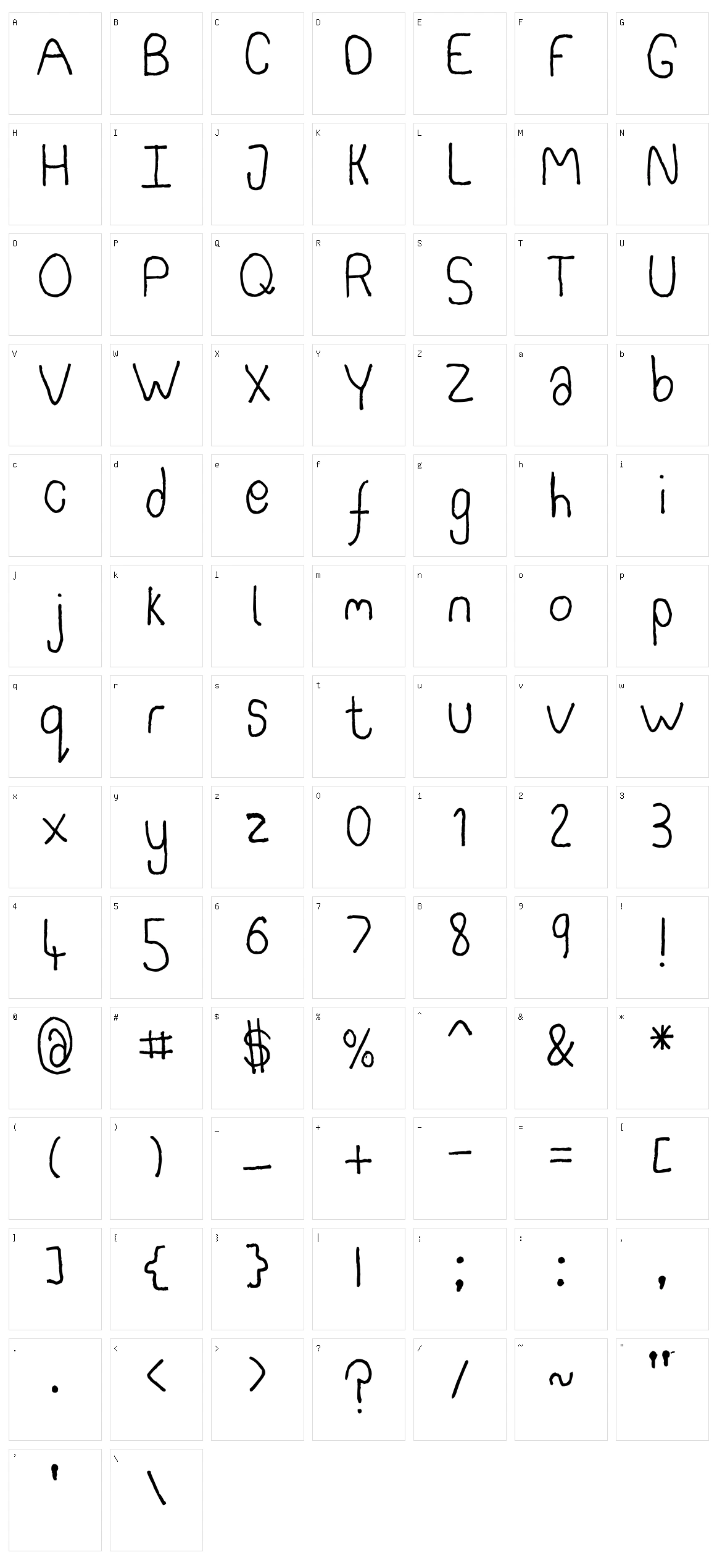
The free font Somebercum Sans Serif is carefully designed by Rory Manzaroli, showcasing a thoughtful balance of creativity and usability and falls under the Script font style. When you download the ZIP file, it contains only 37.54 KB of font files, making it lightweight and quick to download. Please review the license details below to understand permitted usage and distribution rights. If license information is not available, we recommend using this font for personal projects only or contacting the author directly for commercial usage permissions.